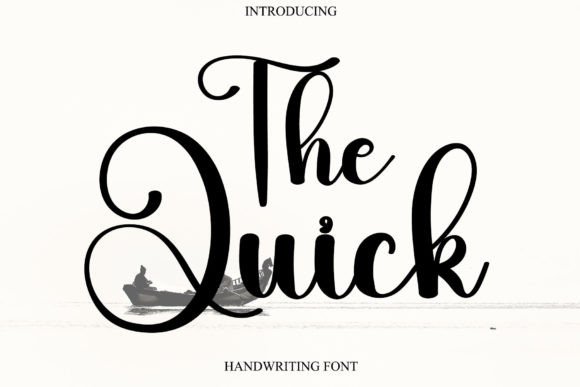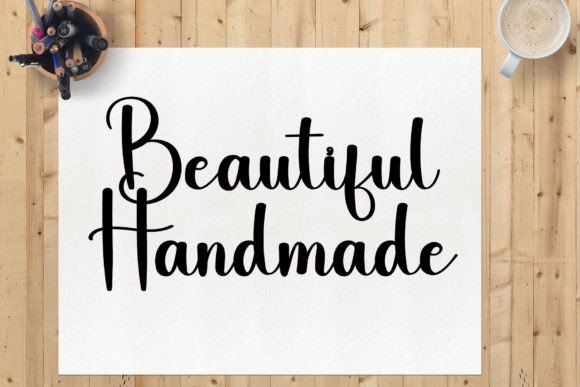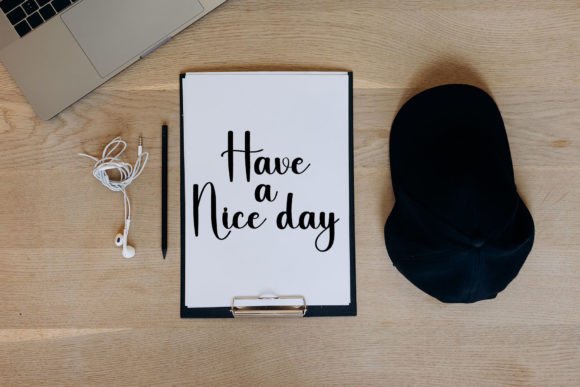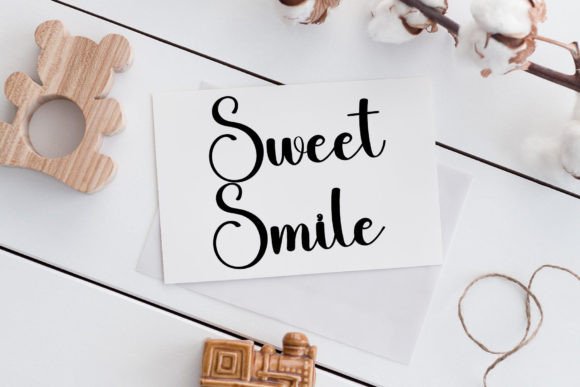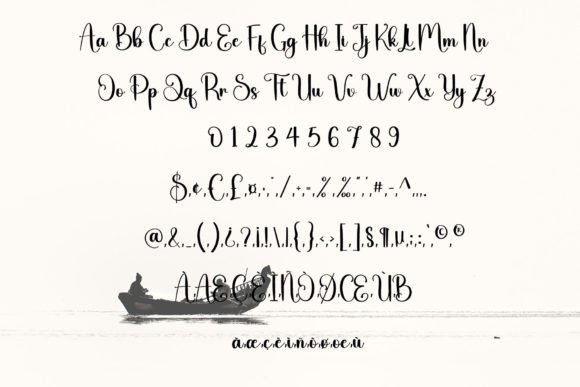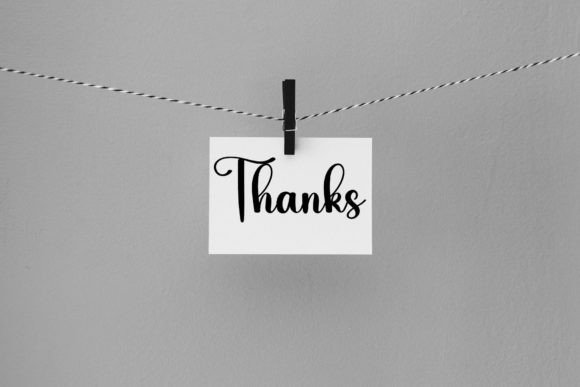
The Quick Font
About The Quick Font
“The Quick” is a sweet and beautiful handwritten font that injects a touch of luxury into your design projects. Notable for characters that gracefully dance along the baseline, this font brings an elegant and sophisticated spark to any creative endeavor.
The handwritten quality of “The Quick” adds a personal and authentic feel to your designs, creating a warm and inviting atmosphere. The dancing characters along the baseline contribute to the font’s unique charm, making it stand out with grace and style.
Whether you’re working on branding, invitations, social media graphics, or any design project that requires a luxurious touch, “The Quick” promises to enhance the visual appeal. Its sweet and beautiful aesthetic lends itself well to a variety of contexts, elevating the overall elegance of your creations.
Adding this font to your design toolkit allows you to infuse a sense of luxury into your projects effortlessly. Whether used for headlines, logos, or other design elements, “The Quick” brings a refined and high-end quality that can elevate the perception of your brand or message.
In summary, “The Quick” is more than just a font; it’s a design asset that exudes sweetness and beauty while adding a luxurious spark to your creations. Embrace its elegance and let it enhance the visual appeal of your design projects with a touch of sophistication.